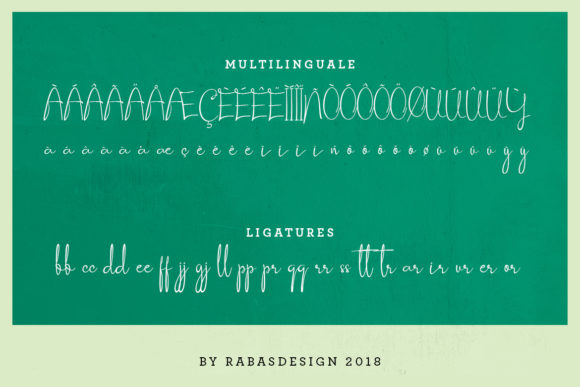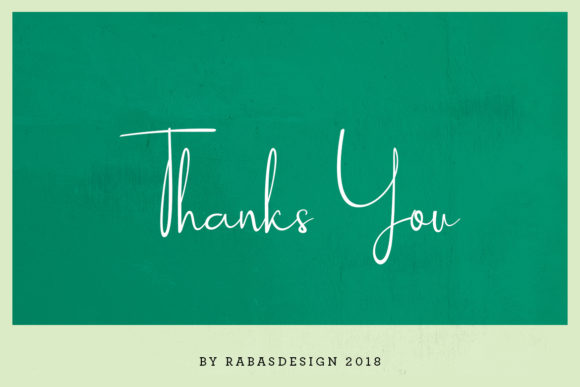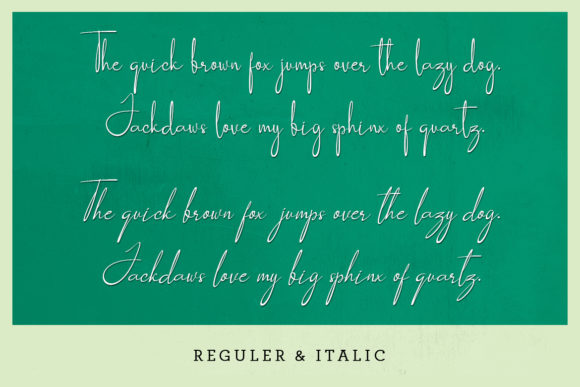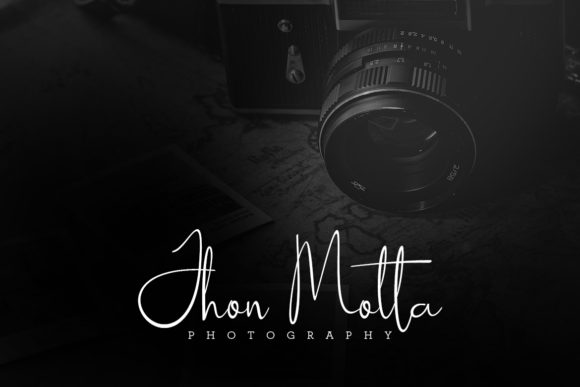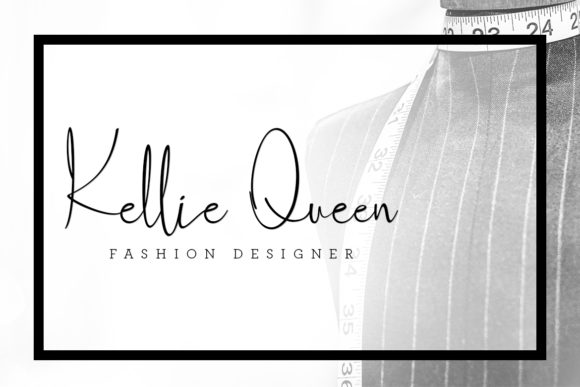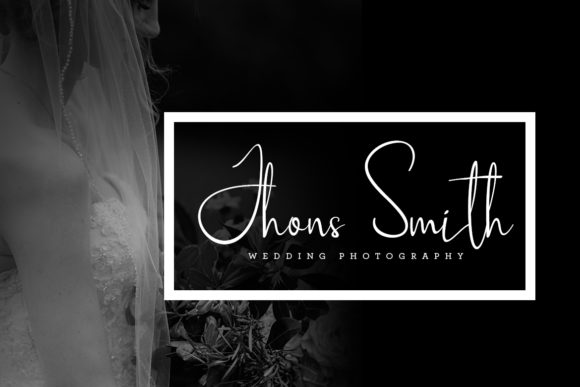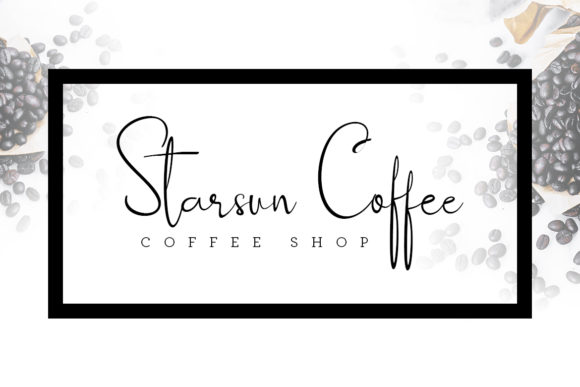
About Socialitta Font
Introducing The Socialitta, a font inspired by delicate and beautiful handwriting, characterized by refined scratches that evoke a sense of elegance. This font is more than a mere script; it’s a design choice crafted to add sophistication and exclusivity, especially ideal for stylish signature branding.
The handwriting-inspired quality of The Socialitta sets it apart, providing a distinctive and personal touch to your designs. The delicate scratches contribute to its refined aesthetic, making it particularly suitable for projects that demand a level of style and exclusivity.
For signature branding, The Socialitta stands as an excellent choice. Its elegant strokes and intricate details give a luxurious and personalized feel, making it perfect for creating a distinctive signature logo or brand identity that exudes exclusivity.
The beauty of The Socialitta lies in its adaptability to stylish and high-end contexts. Whether you’re designing business cards, packaging for luxury products, exclusive event invitations, or any project that requires a touch of sophistication, this font elevates your work to a new level of refinement.
In summary, The Socialitta is not just a font; it’s a design statement that brings the elegance of delicate scratches to your projects. Embrace its handwriting-inspired beauty and let it create a stylish and exclusive atmosphere for your signature branding and beyond. Elevate your designs with The Socialitta, where each stroke tells a story of refinement and sophistication.